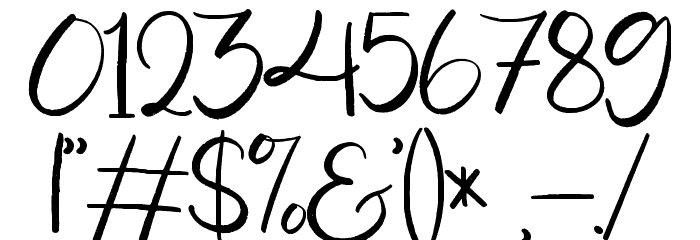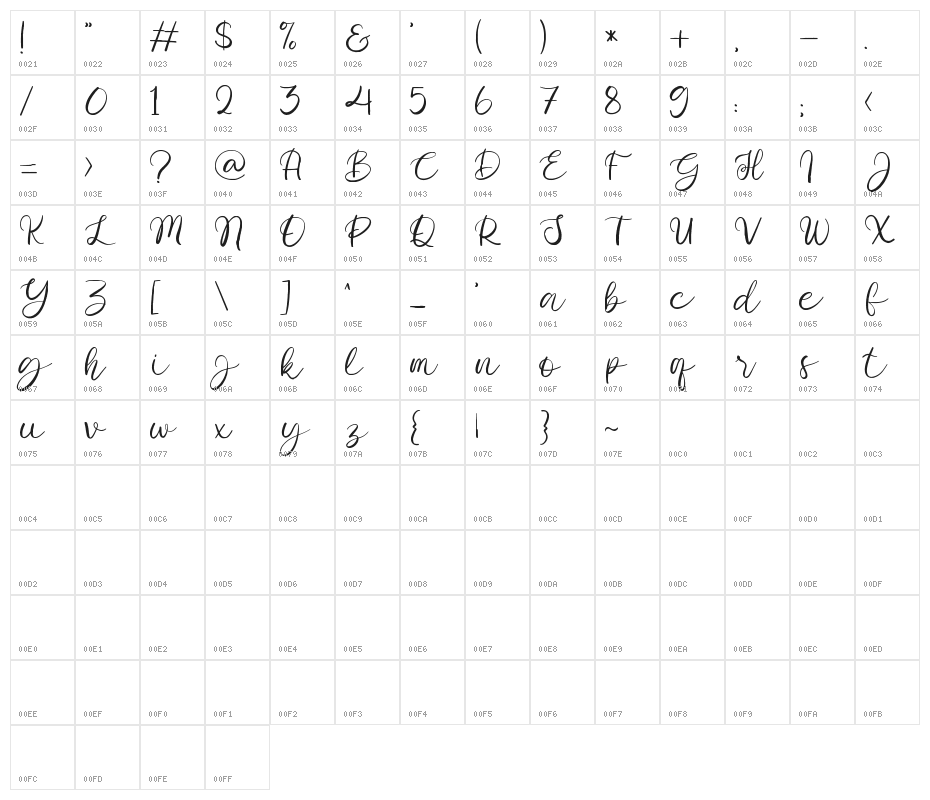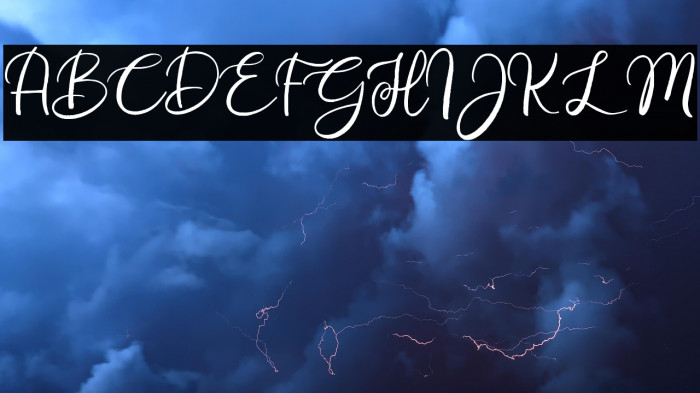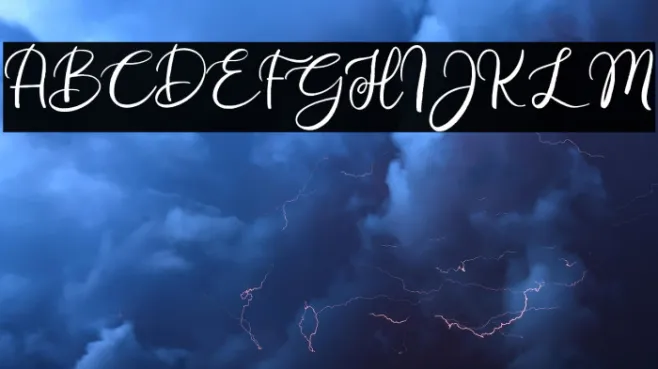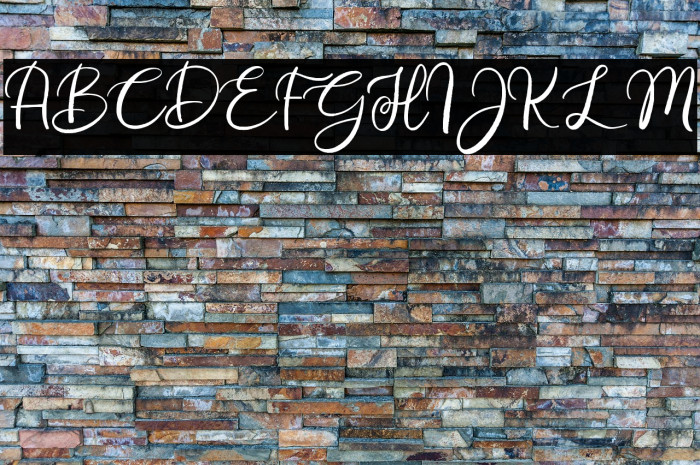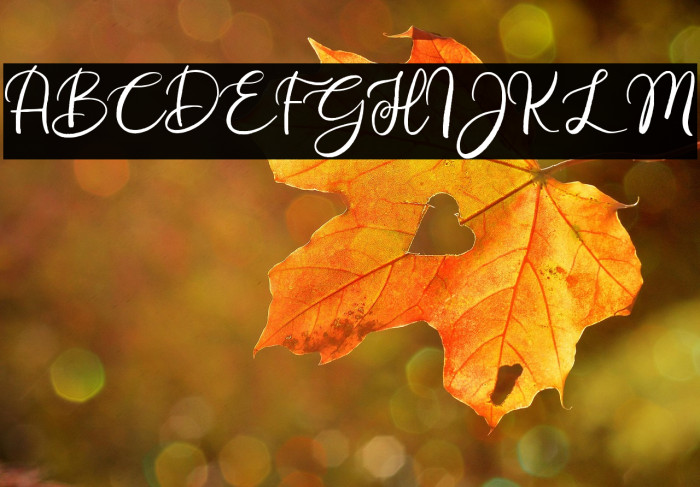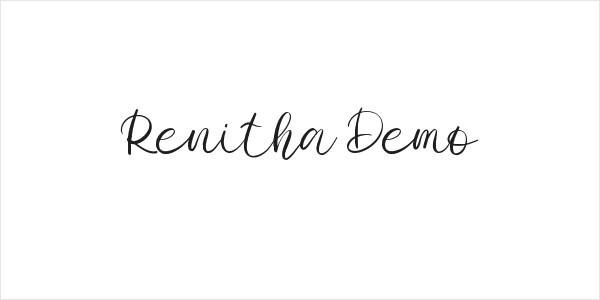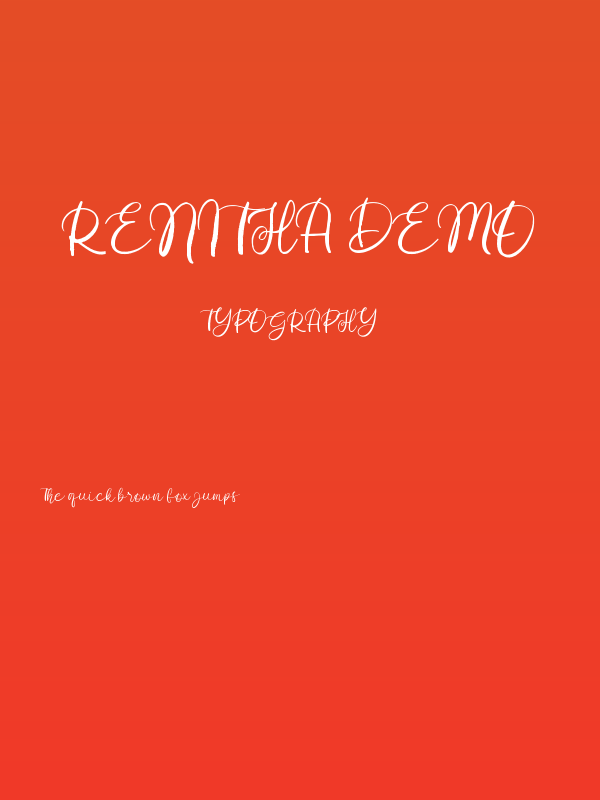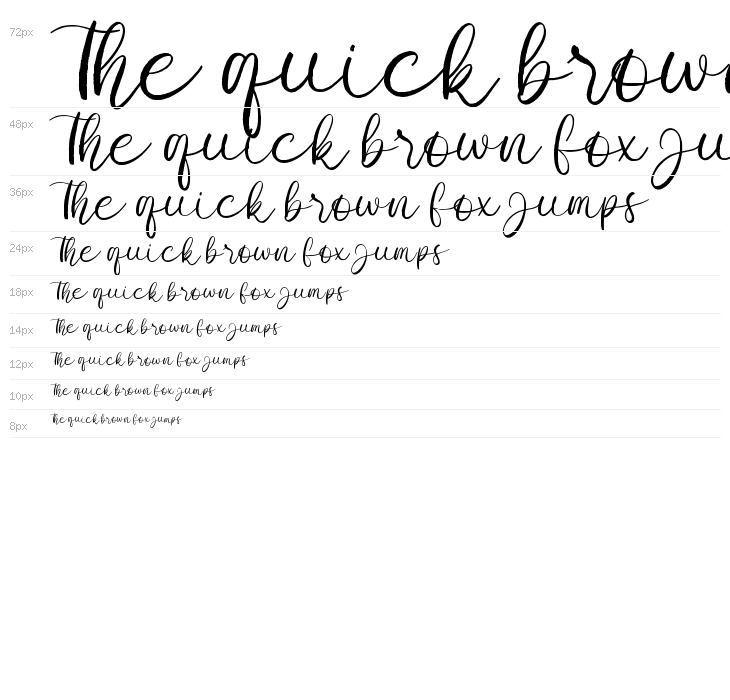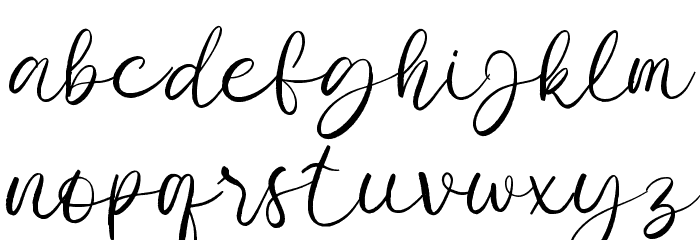
Renitha Demo Font
Renitha Demo Description
This font exhibits a flowing, cursive style with a handwritten appearance. The characters are elegantly connected, creating a sense of fluidity and movement. The uppercase letters are slightly larger and more pronounced, while the lowercase letters maintain a consistent flow. Numbers and special characters are designed to match the overall aesthetic, with smooth curves and a playful touch. The font's style is both modern and artistic, making it suitable for creative projects that require a personal and expressive touch.